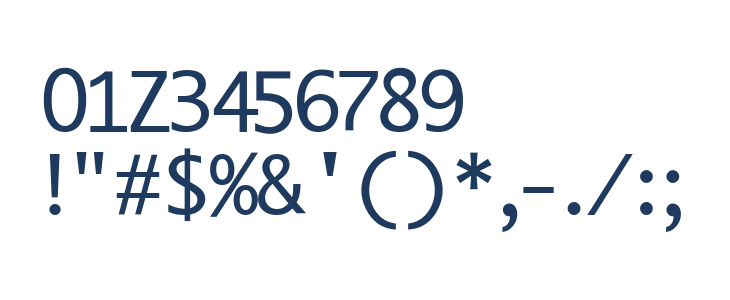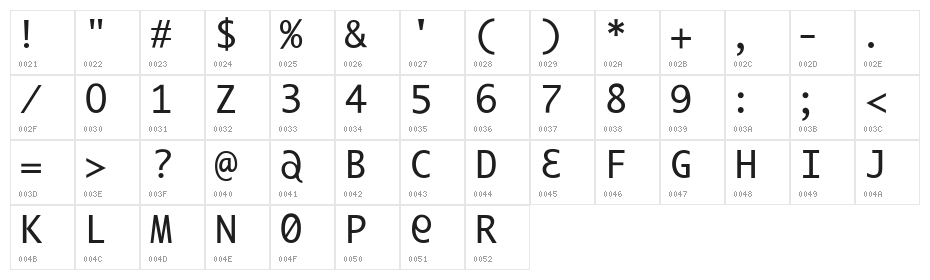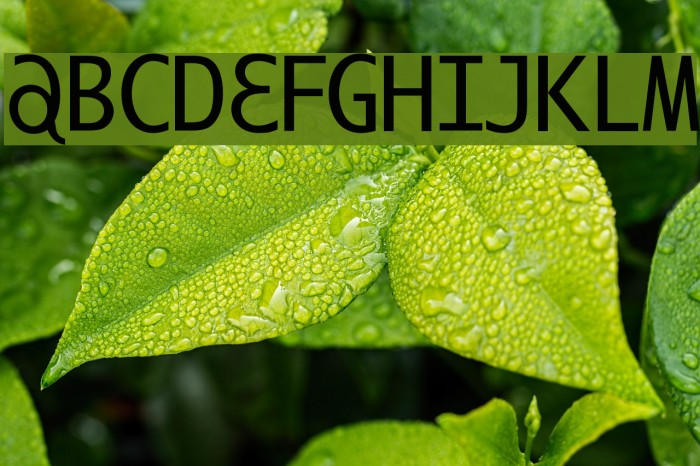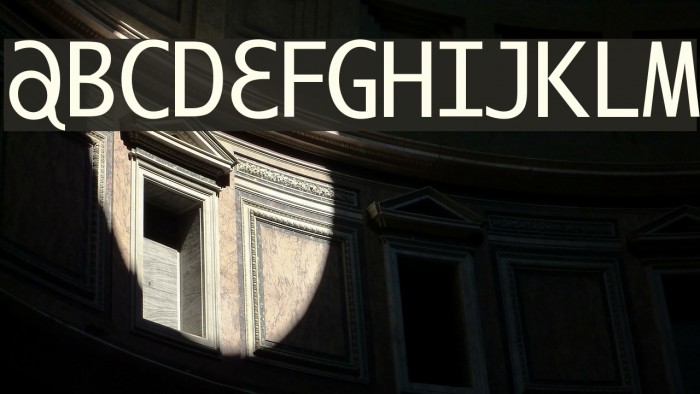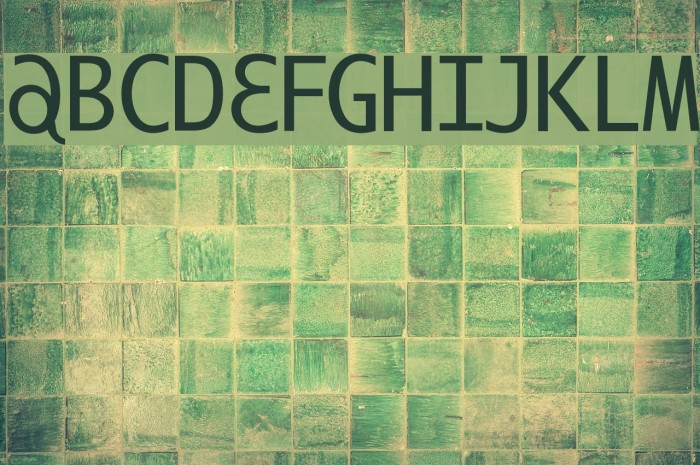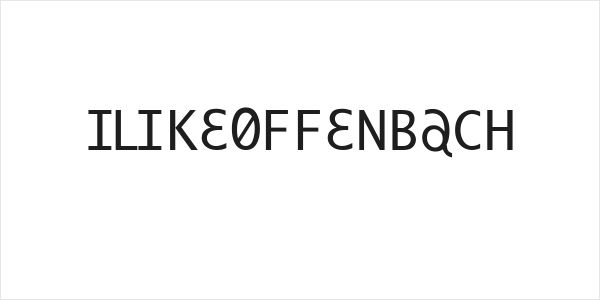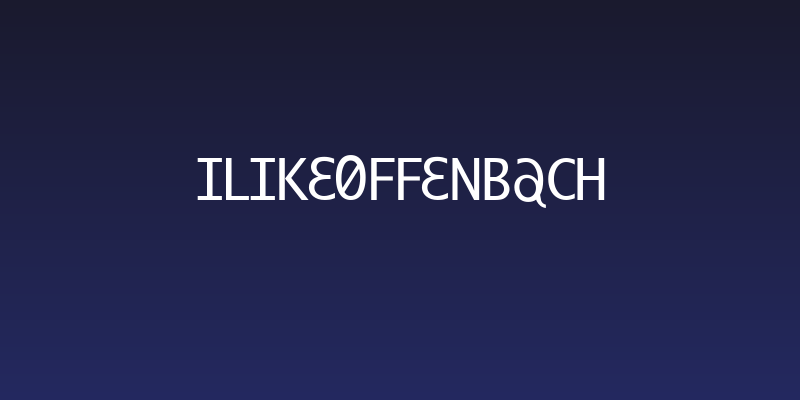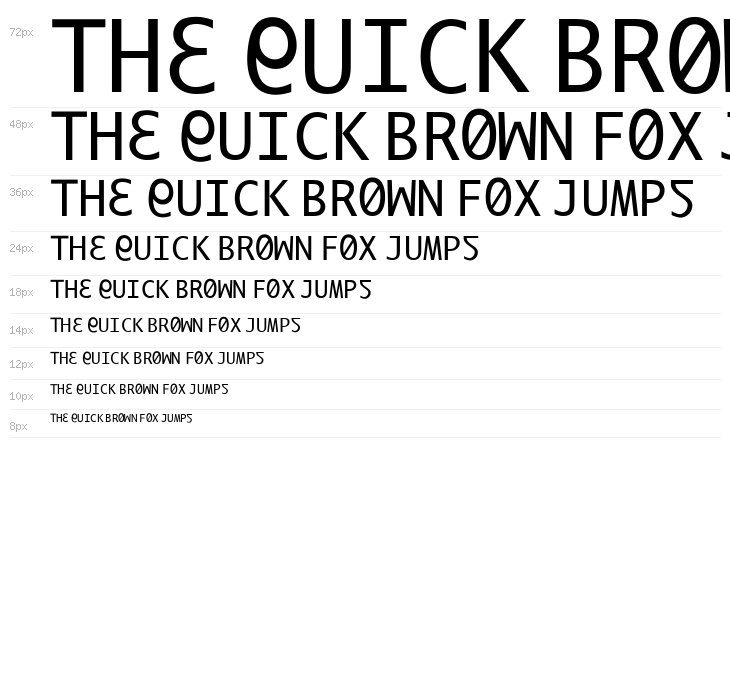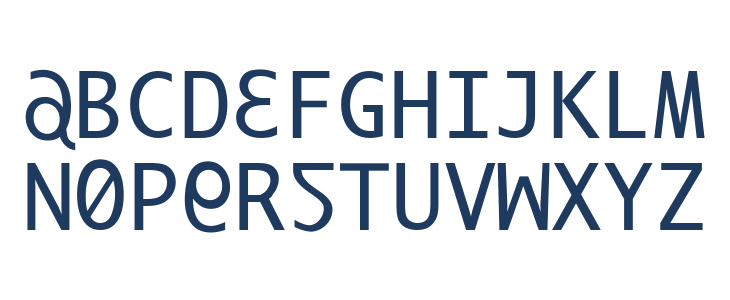
ILikeOffenbach Font
ILikeOffenbach Description
This font features a modern and geometric design with clean lines and a distinct, futuristic aesthetic. The characters are crafted with a consistent stroke weight, creating a uniform appearance across both uppercase and lowercase letters. The font includes unique elements such as the slashed zero and the distinctive shapes of letters like 'Q' and 'R', which add a contemporary flair. The numerals are bold and clear, ensuring readability. Special characters are included, maintaining the font's cohesive style. This typeface is well-suited for digital and print media, offering versatility in various design contexts.